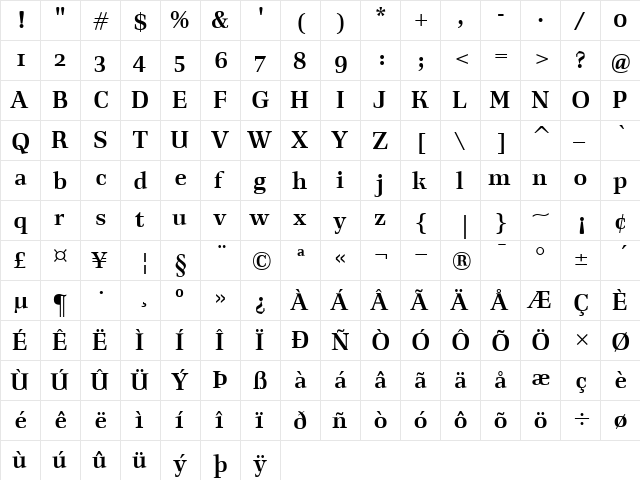
Richler-Bold Regular
Design Context for Richler-Bold Typeface
Richler-Bold is a composed and adaptable typeface that performs quietly and consistently across a wide range of design contexts. The heavy weight commands attention and anchors typographic hierarchies.
Pro Tip: Use Richler-Bold in both headline and body roles to test its range before committing to a single application.